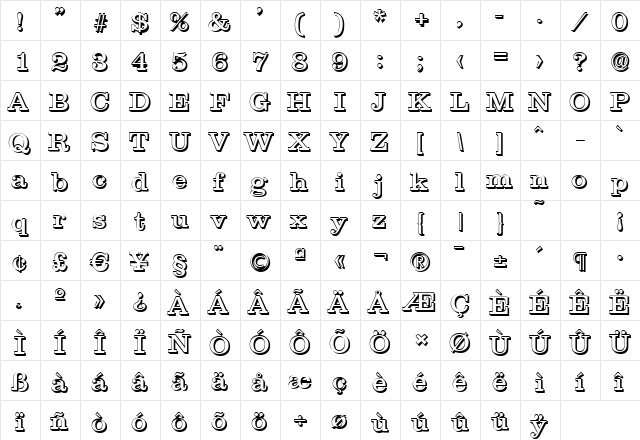
JamesBeckerShadow Regular
Design Context for JamesBeckerShadow Typeface
JamesBeckerShadow brings ornamental detail and strong personality to headlines and identities, where visual impact matters more than quiet functionality.
Font Pairing: Pair with a clean neutral sans-serif for body copy to let JamesBeckerShadow's character lead without overwhelming the composition.
Pro Tip: Use JamesBeckerShadow exclusively at display sizes — it was designed to be seen, not read at length. Let a neutral companion handle body copy.